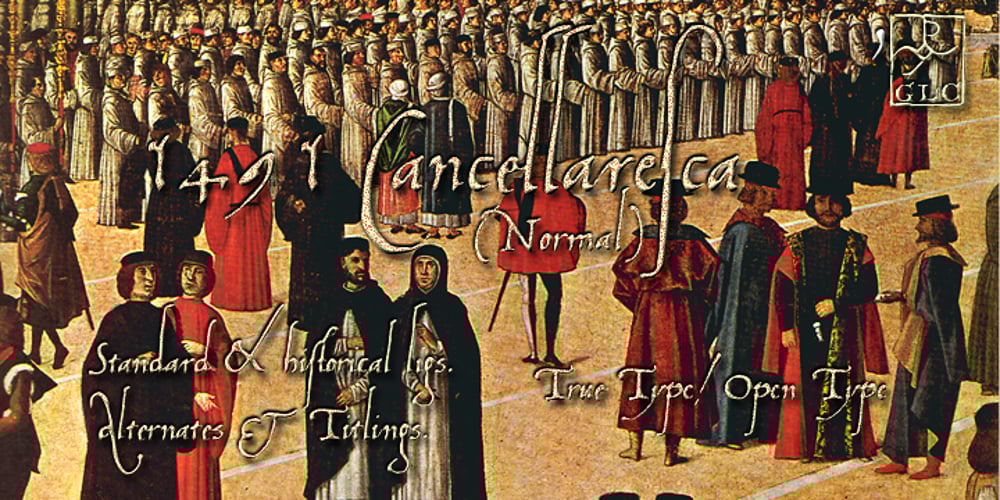
1491 Cancellaresca
1491 Cancellaresca font
1491 Cancellaresca Font Family was designed by published by GLC. 1491 Cancellaresca contains 1 styles and family package options. This font was inspired by the very well-known humanistic script called “Cancellaresca”. This variant was used by a lot of calligraphers in the late 1400s, specially by the Venetian Giovannantonio Tagliente, whose patterns were mainly used for this font. You can compare this with 1610 Cancellaresca. Numerals were inspired by Da Vinci manuscripts, from the same period. We added accented characters and a few others not currently existing at the time. A lot of titling alternates and ligatures are also included.